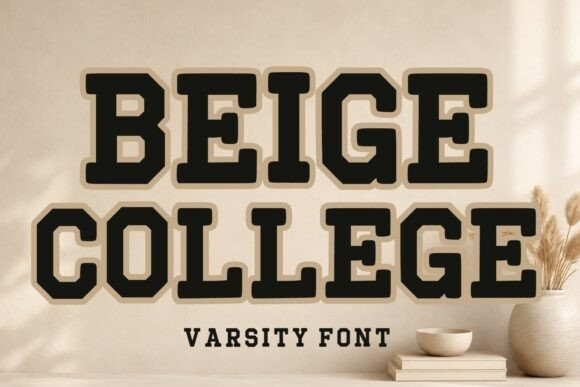
Beige College Font
Beige College Font is a bold and timeless athletic display typeface inspired by classic American college sports, varsity jackets, championship teams, and vintage campus culture. Featuring strong geometric letterforms, iconic collegiate styling, and a clean layered appearance, this font instantly brings a professional sports-inspired look to any design project.
Designed for maximum visual impact, Beige College Varsity Font is perfect for creating standout headlines, sports branding, school merchandise, team uniforms, jersey numbers, apparel graphics, logos, posters, banners, social media content, and promotional materials. Its bold structure ensures excellent readability while maintaining the authentic spirit of traditional varsity typography.
The font blends vintage athletic aesthetics with modern design versatility, making it suitable for both retro-themed and contemporary projects. Whether you’re designing for a sports team, university event, school spirit campaign, streetwear brand, esports organization, or custom merchandise collection, this typeface delivers confidence, strength, and championship-level style.
With its distinctive collegiate character and powerful presence, Beige College Varsity Font is an excellent choice for designers looking to create memorable and energetic visuals that capture the essence of sports culture and academic tradition.